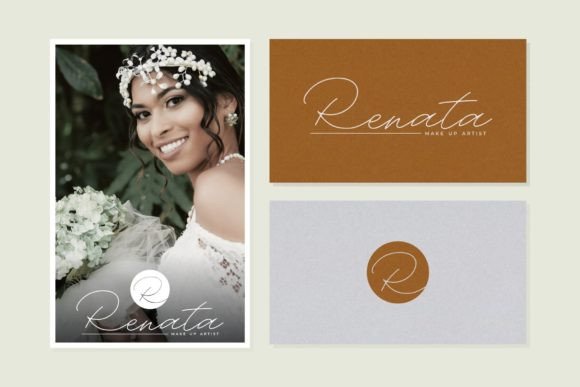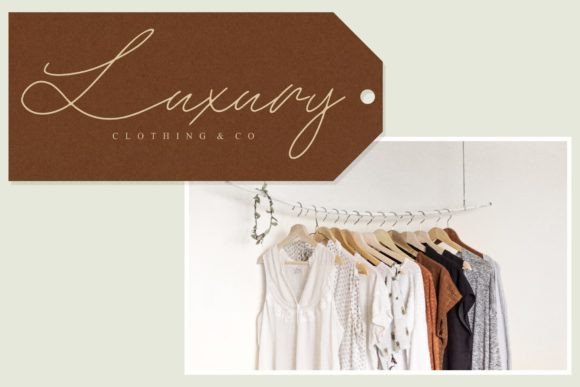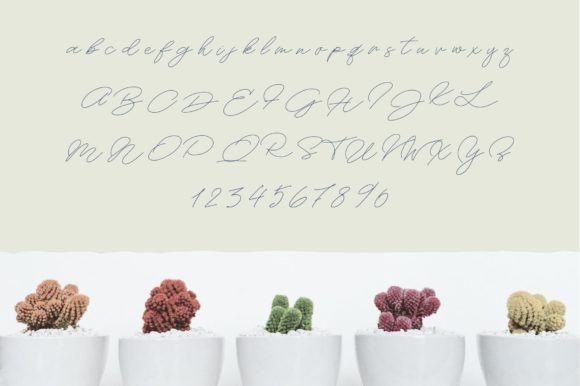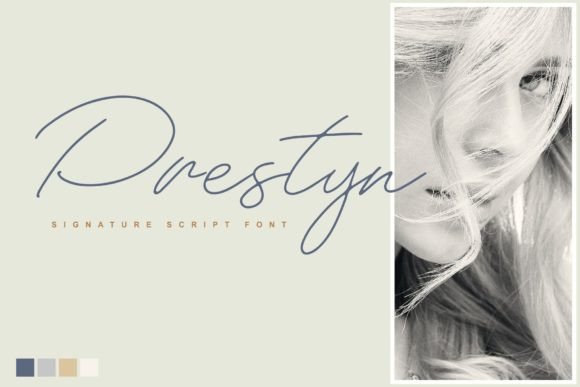
Introduction to Prestyn Font
Prestyn is a delicate monoline script font.
Its large looping capitals make it perfect for signature-style logos, quotes, stationery & much more .